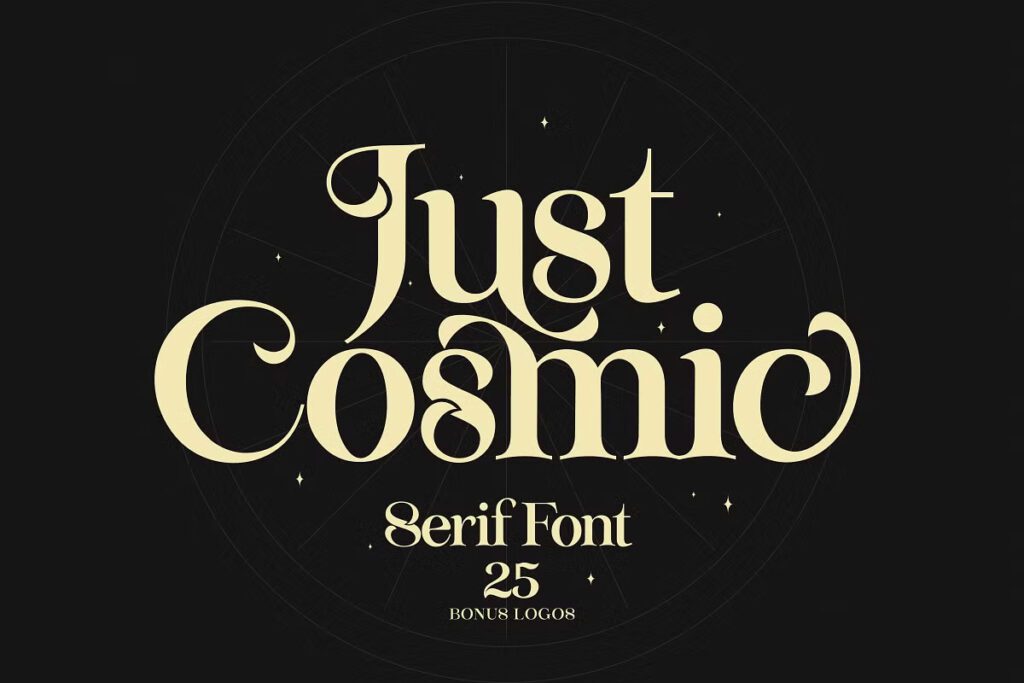
Just Cosmic Font + Logos – Elevate Your Designs with Vintage Magic
Introducing Just Cosmic, a stunning modern vintage font that comes with beautiful stylistic alternates and eye-catching cutout ligatures. Whether you’re working on text-heavy designs or display typography, this versatile serif font has you covered. Plus, the package includes 25 fully editable logos that are perfect for Adobe Photoshop or Illustrator. With its clean, minimal design, Just Cosmic makes your text stand out on both web and print platforms.
Why Choose Just Cosmic?
Vintage Charm with Modern Flexibility: This serif font blends timeless vintage aesthetics with a modern touch, making it perfect for any design project.
Stylistic Alternates and Ligatures: Customize your designs with alternate characters and ligatures, giving your text a natural, elegant flow.
Key Features:
Versatile Design: Great for chalkboard, cursive, vintage, feminine, premium, and rustic styles.
Just Cosmic is perfect for logos, tattoos, bullet journals, vinyl designs, and much more. Whether you’re designing for print or digital media, this font will add a magical touch to any project.